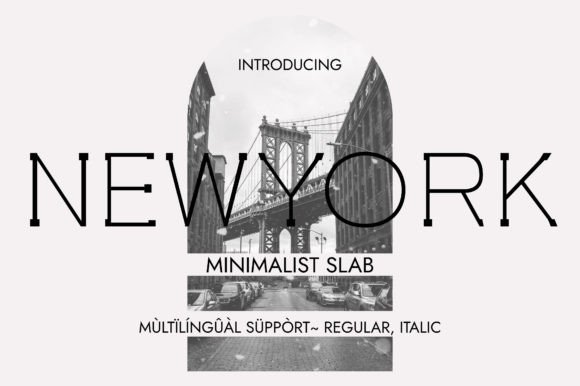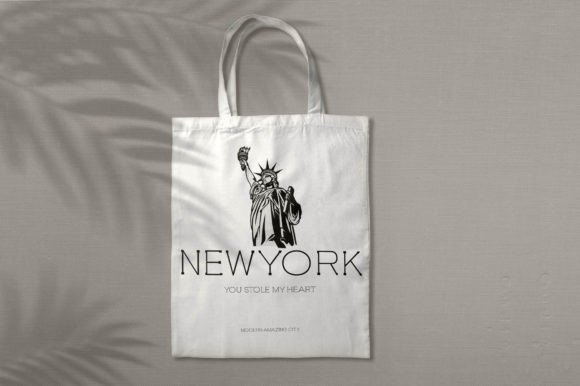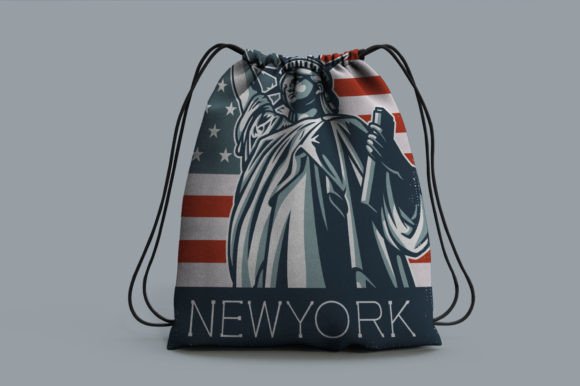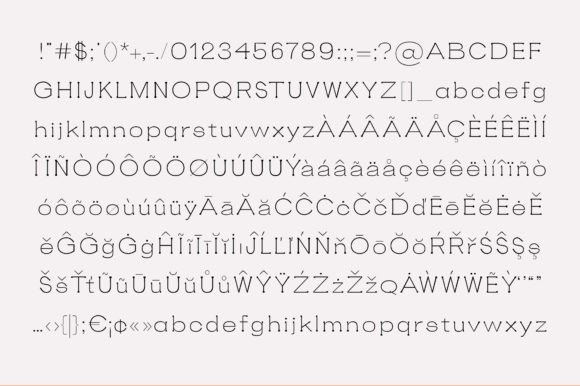
Newyork
Newyork: An Elegant and Minimalist Slab Serif Typeface
Newyork is an elegant, minimalist, and luxuriously thin slab serif typeface. Its amazing glyphs construction renders it a valid choice when it comes to designing elegant themes that require particular touches. It is suitable for use in headings and body texts, and can be beautifully applied in packaging design, perfume design, cosmetics design, web design, magazine covers, and more. Add this font to your favorite creative ideas, and notice how it makes them stand out!
Key Features of Newyork
• Elegant Design: Offers a sophisticated and refined look suitable for luxury applications.
• Minimalist Style: Features clean lines and simple forms for a modern aesthetic.
• Thin Slab Serif: Incorporates delicate serifs that add character while maintaining elegance.
• Versatile Application: Ideal for both headlines and body text in various design contexts.
Ideal Uses for Newyork
Newyork’s unique characteristics make it particularly well-suited for:
When incorporating Newyork into your designs, consider these tips:
• Use for both headlines and body text to showcase its versatility.
• Experiment with different sizes to highlight the font’s elegant features.
• Consider pairing with complementary sans-serif fonts for contrast in complex layouts.
• Utilize its minimalist aesthetic to create sophisticated and modern designs.
Newyork is an excellent choice for designers looking to add an elegant and minimalist slab serif font to their typographic toolkit. Its ability to bring sophistication and modernity to various design projects makes it stand out in the world of typography. Whether you’re working on luxury packaging, creating high-end branding materials, or developing content that requires a touch of elegance, Newyork offers the perfect blend of style and versatility.
Furthermore, Newyork’s unique design allows it to shine in various contexts that demand a premium look. From perfume labels to sophisticated web designs, this font can elevate your projects with its distinctive style. Its thin yet readable appearance works particularly well in designs that aim to convey a sense of luxury and refinement.
In conclusion, Newyork is a font that truly captures the essence of modern elegance in typography. Its versatility across different high-end applications showcases its adaptability to various creative needs. For those looking to add a touch of sophisticated charm to their work, Newyork can enhance themed creations with its distinctive style. It’s the perfect choice for designers seeking to make a refined, stylish impact across a wide range of luxury-oriented creative projects.